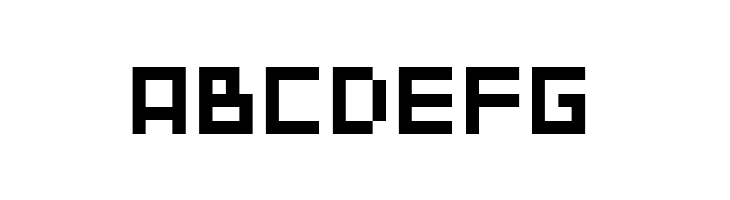
Portfolio 3D Extravagant Regular Font
- Font: Portfolio 3D Extravagant Regular
( Font by Sven Stuber - www.superlooper.de )
A pixelated, retro-style font with a digital, blocky appearance.